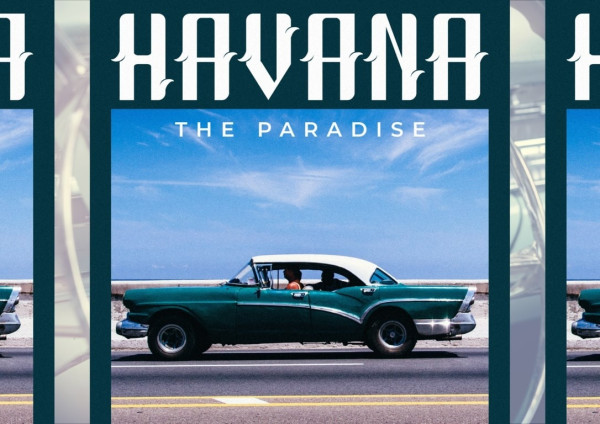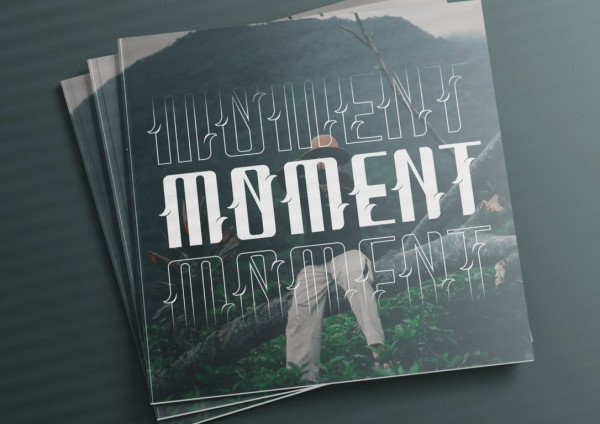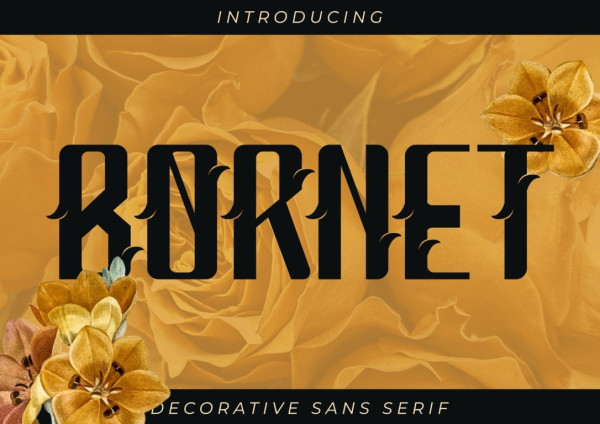
Bornet Display Font
Bornet Display Font a bold modern typeface. With its solid and charming appeal, Bornet Font effortlessly combines a contemporary and antique aesthetic, exuding an elegant allure. This sans serif font exudes style, elegance, and sophistication, making it an ideal choice for various projects. Whether it’s branding projects, logos, wedding designs, social media posts, advertisements, product packaging, product designs, labels, photography, watermarks, invitations, or stationery, Bornet Font is the perfect companion.